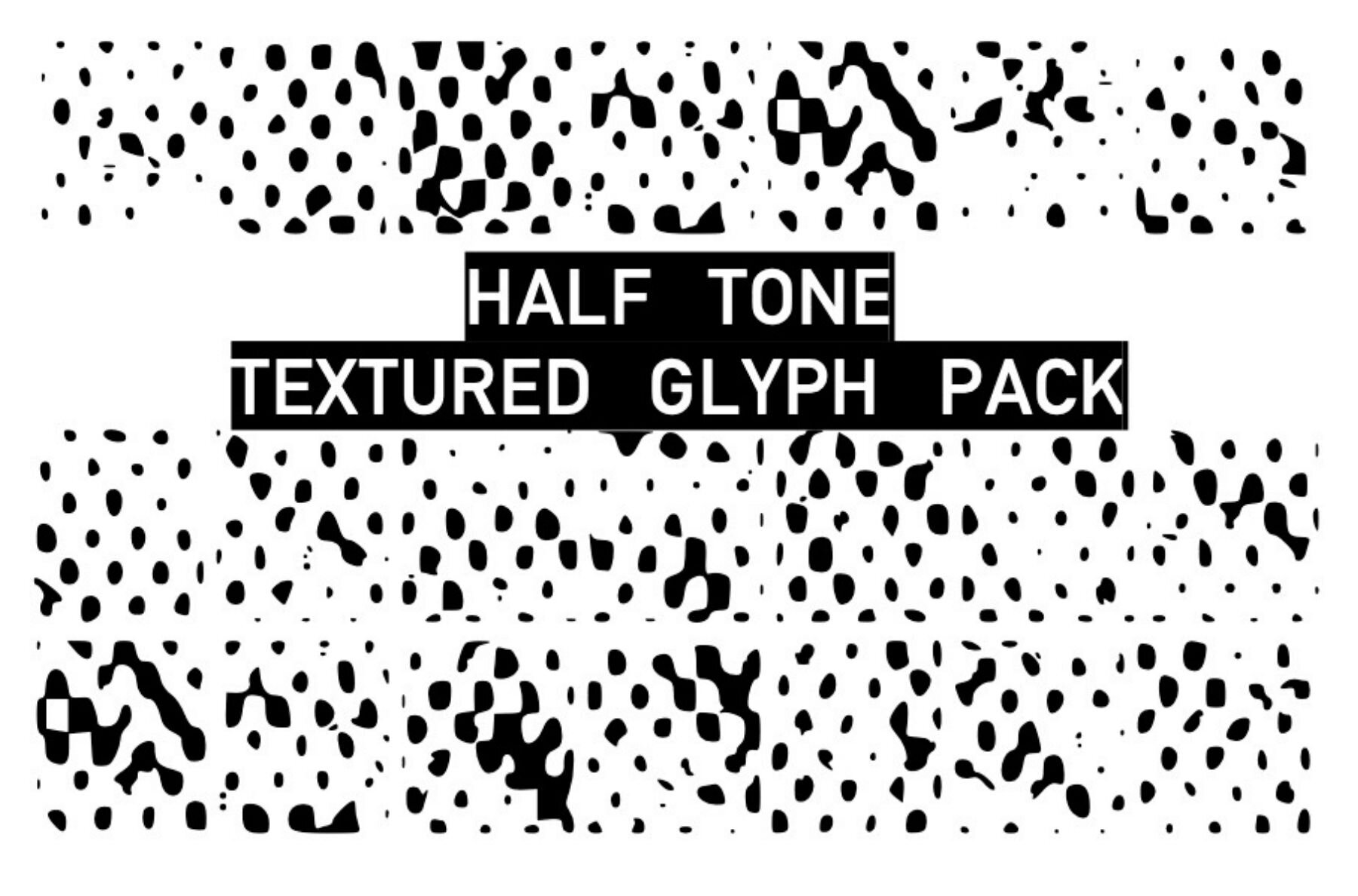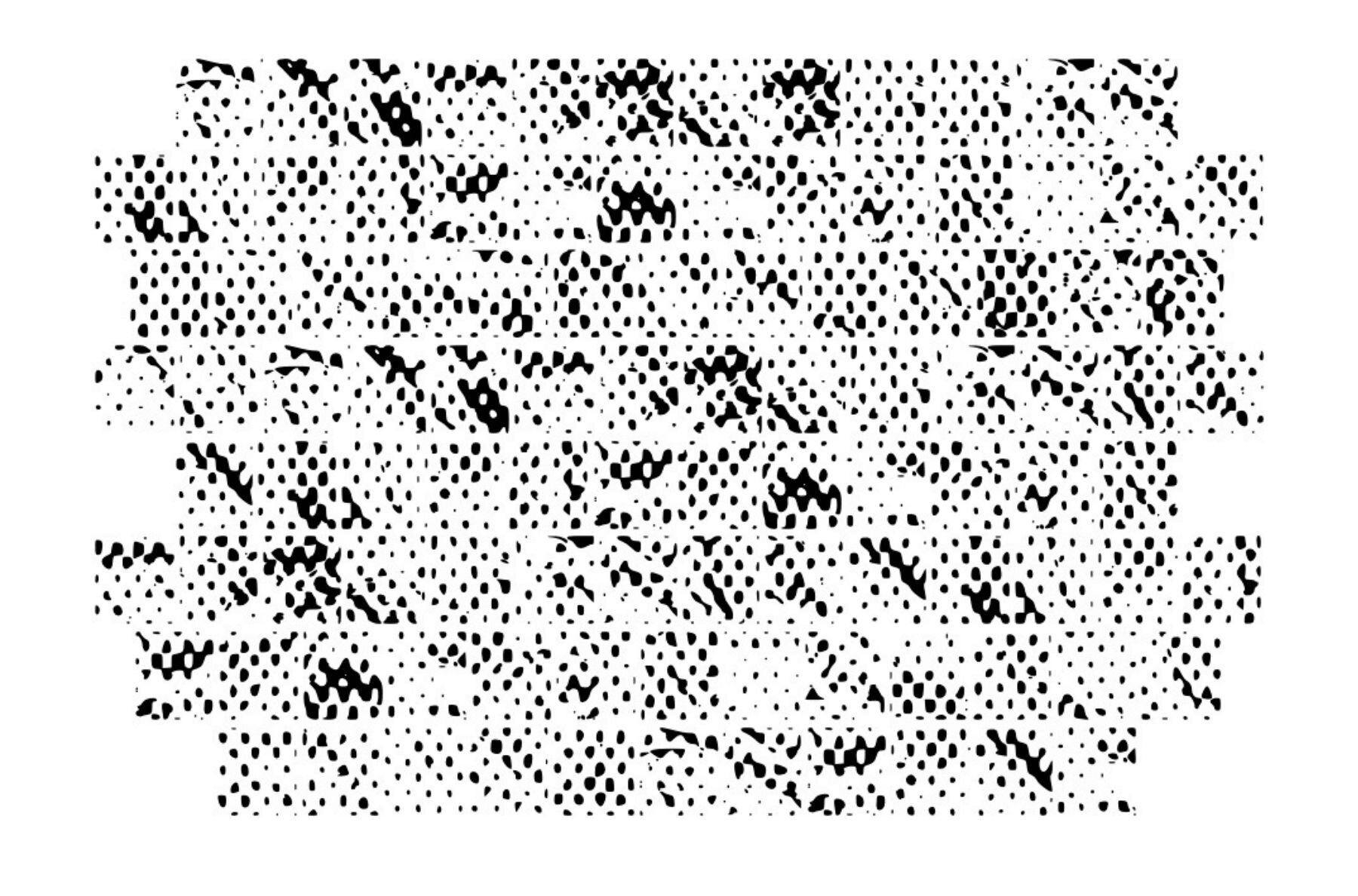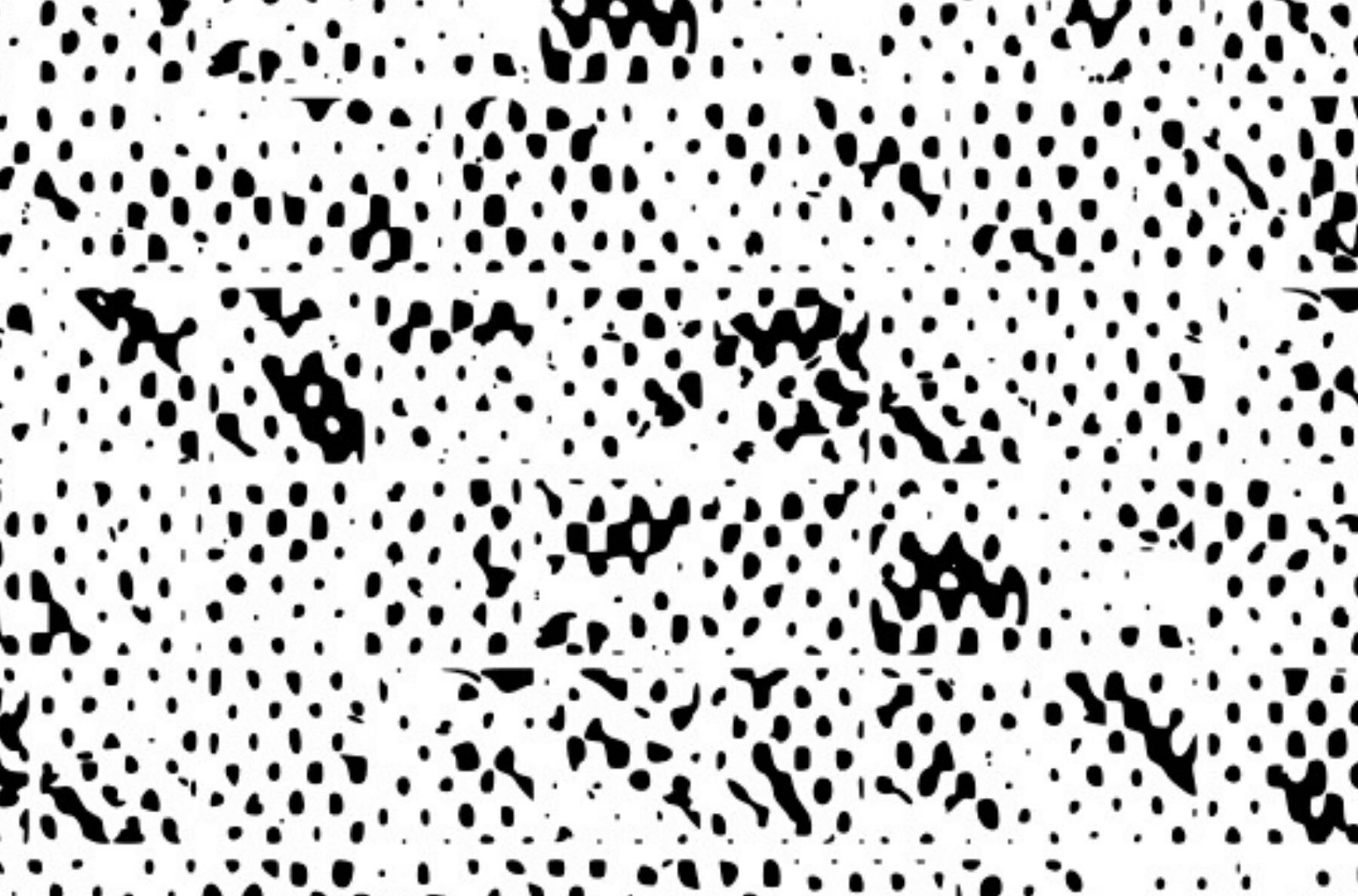
Halftone Textured Font
Texture Glyph Halftone
Dive into the creative world with the Halftone Textured Glyphs pack. This extensive collection brings you an array of textures, perfect for adding a unique flair to your design and craft projects. Whether you're working on a graphic design masterpiece or a hands-on craft project, these glyphs provide the versatility you need.Halftone Textured Glyphs